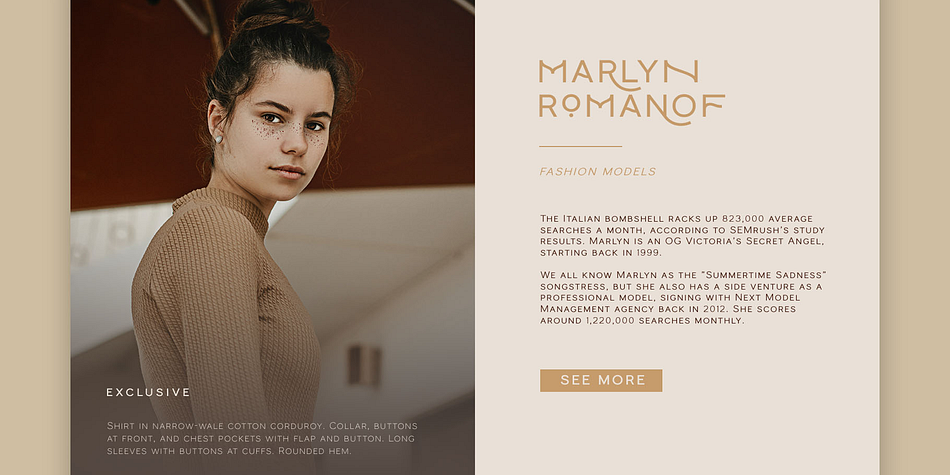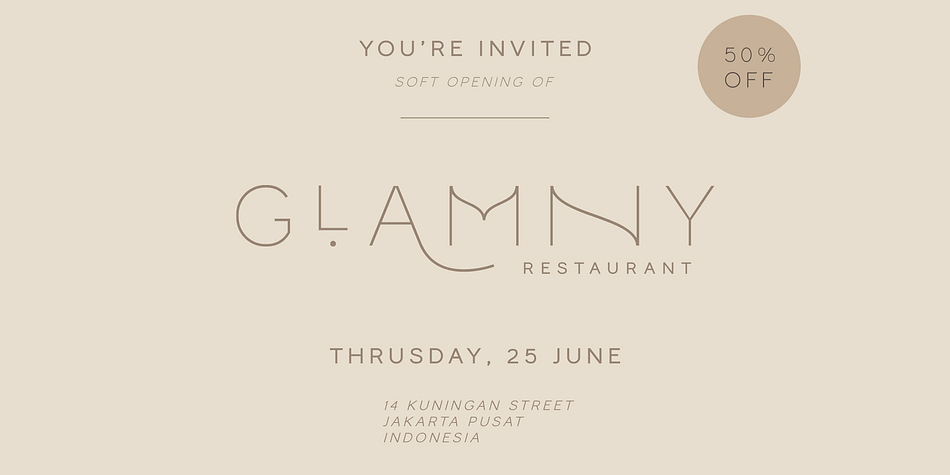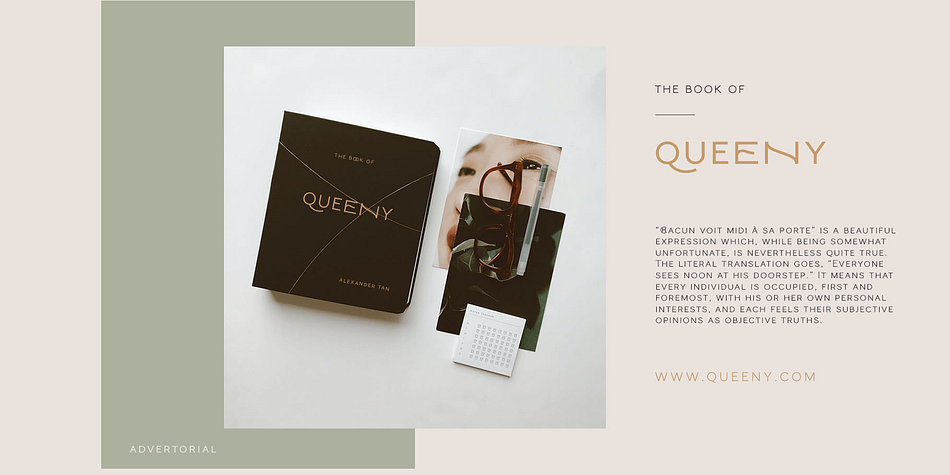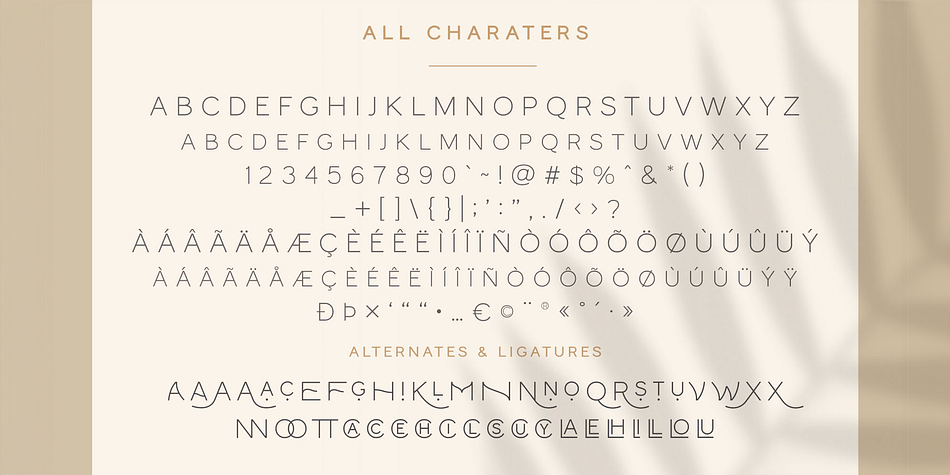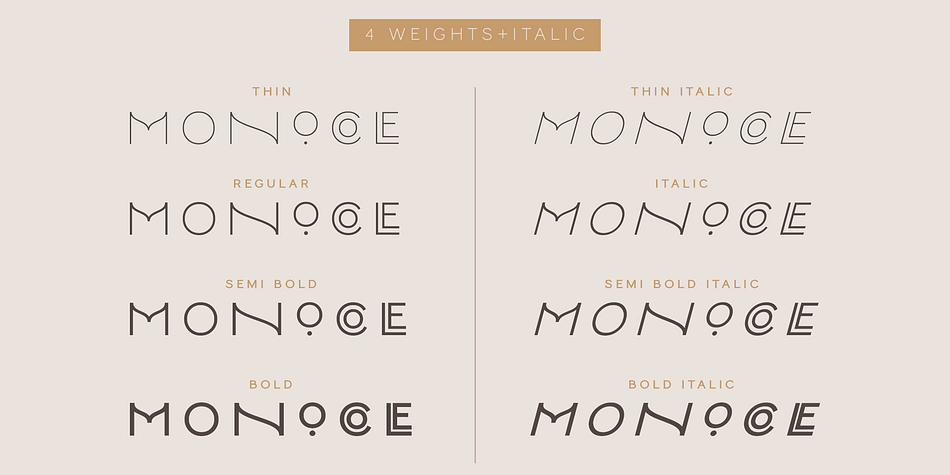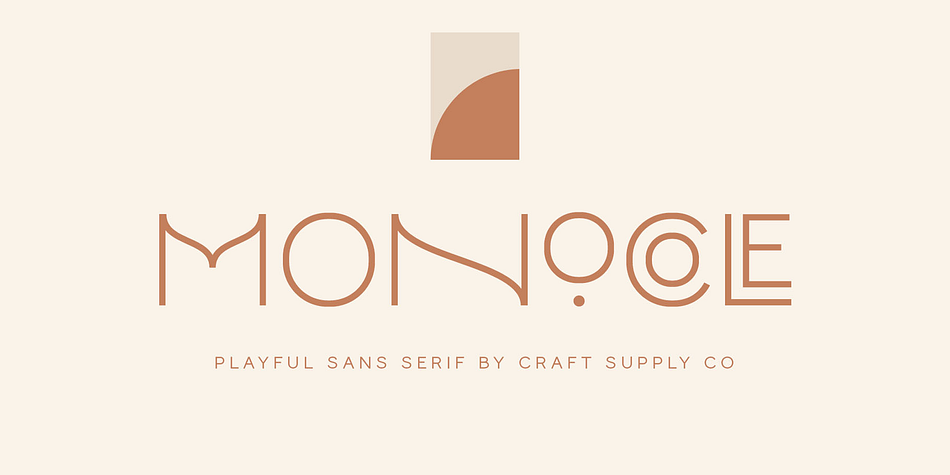
Monocole
Monocole is a display sans font family. This typeface has eight styles and was published by Craft Supply Co.
Introducing New Font : Monocole – Playful Sans Serif | 8 Fonts
Monocole – Playful Sans Serif is a modern sans serif font family whose design refers us to the style of modern sans serif. The distinctive features of Monocole – Playful Sans Serif are the relatively low contrast of strokes, the slightly squarish shapes of round characters and the emphasized business like simplicity.
Monocole – Playful Sans Serif features an original stylistic set which, when turned on, adds features of typical pointed-pen sans serif to some of the lowercase characters. In addition, Monocole – Playful Sans Serif has small capitals for Latin and as well as several interesting ligatures.
Monocole – Playful Sans Serif has been crafted from scratch with a structural logic of its own: a fusion of pure geometry and optical balance. By combining a variety of styles Monocole – Playful Sans Serif is suitable for Logo, greeting cards, quotes, posters, branding, name card, stationary, design title, blog header, art quote, typography